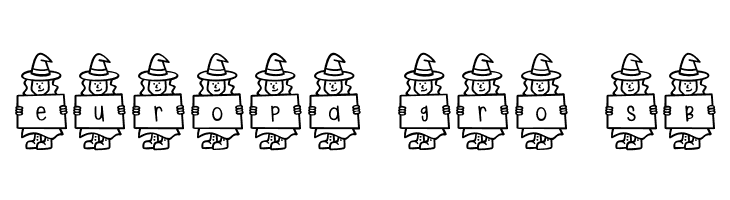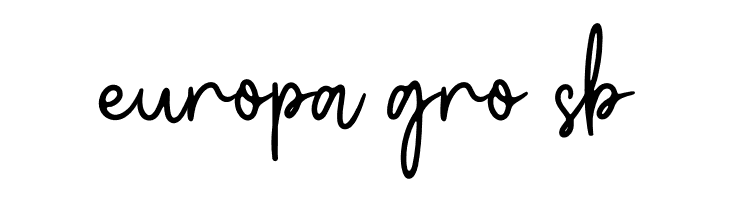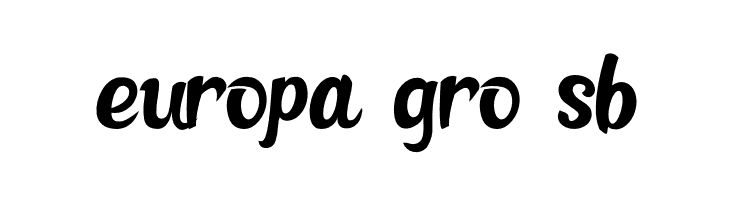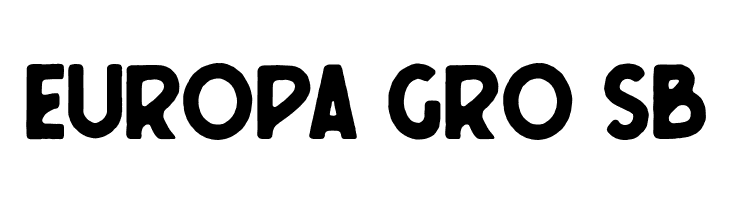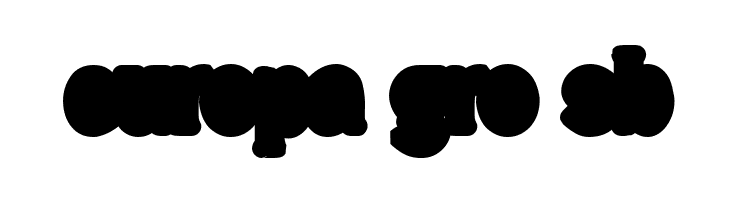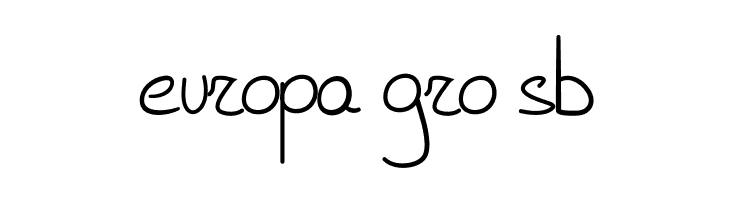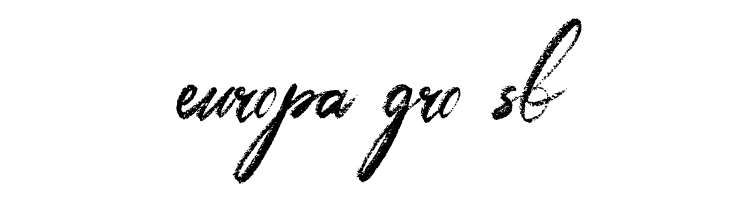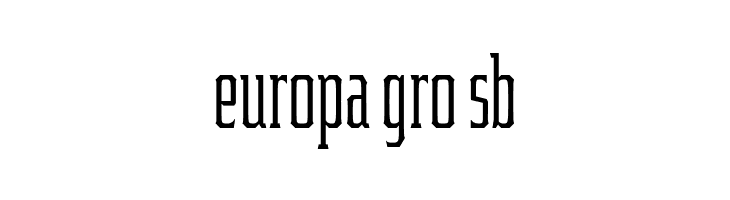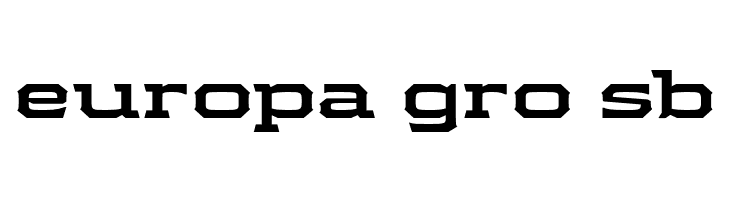
A whimsical font with letters held by cartoon witches, perfect for magical themes.
A lively, expressive handwritten font with fluid, dynamic strokes.
A bold, expressive script font with dynamic flow and smooth curves.
A bold, rounded font with a playful and informal style.
Bold, chunky font with rounded edges and a strong, playful presence.
A playful and whimsical font with rounded, smooth letterforms and consistent stroke width.
A dynamic script font with bold, hand-brushed strokes and elegant cursive flow.
A tall, narrow, and modern condensed font with uniform stroke width.
A bold, extended slab serif font with a modern yet vintage feel.